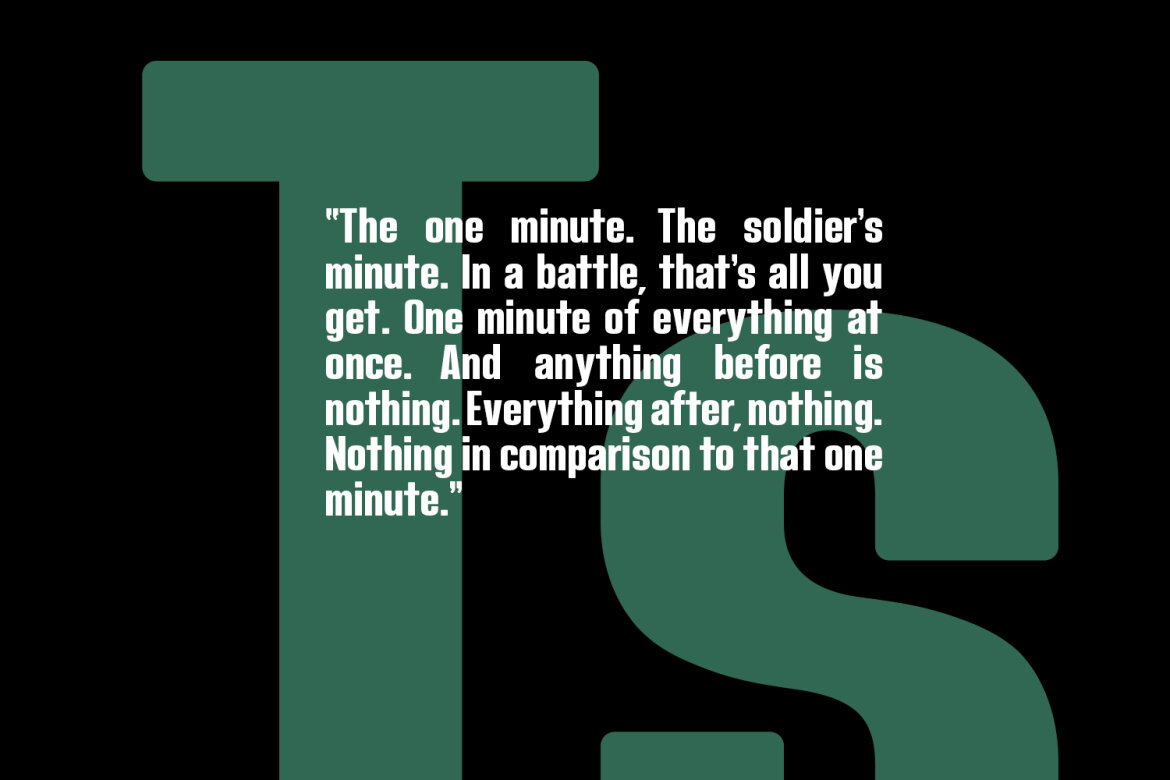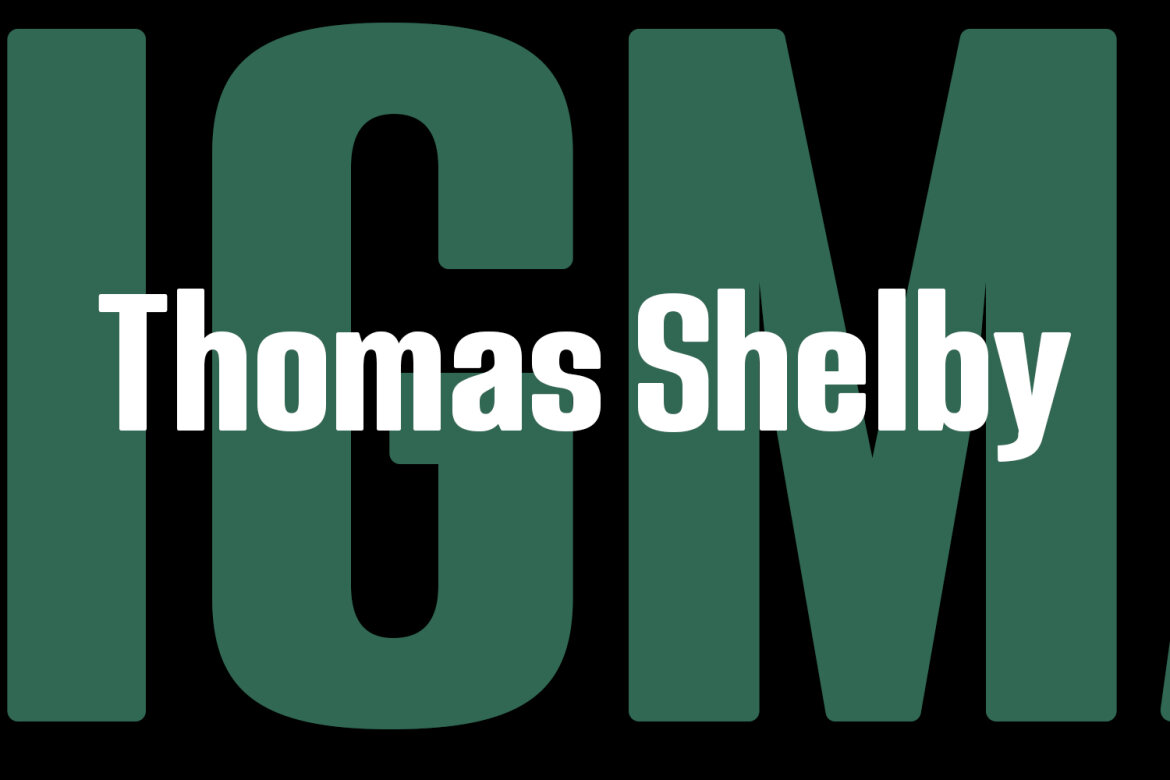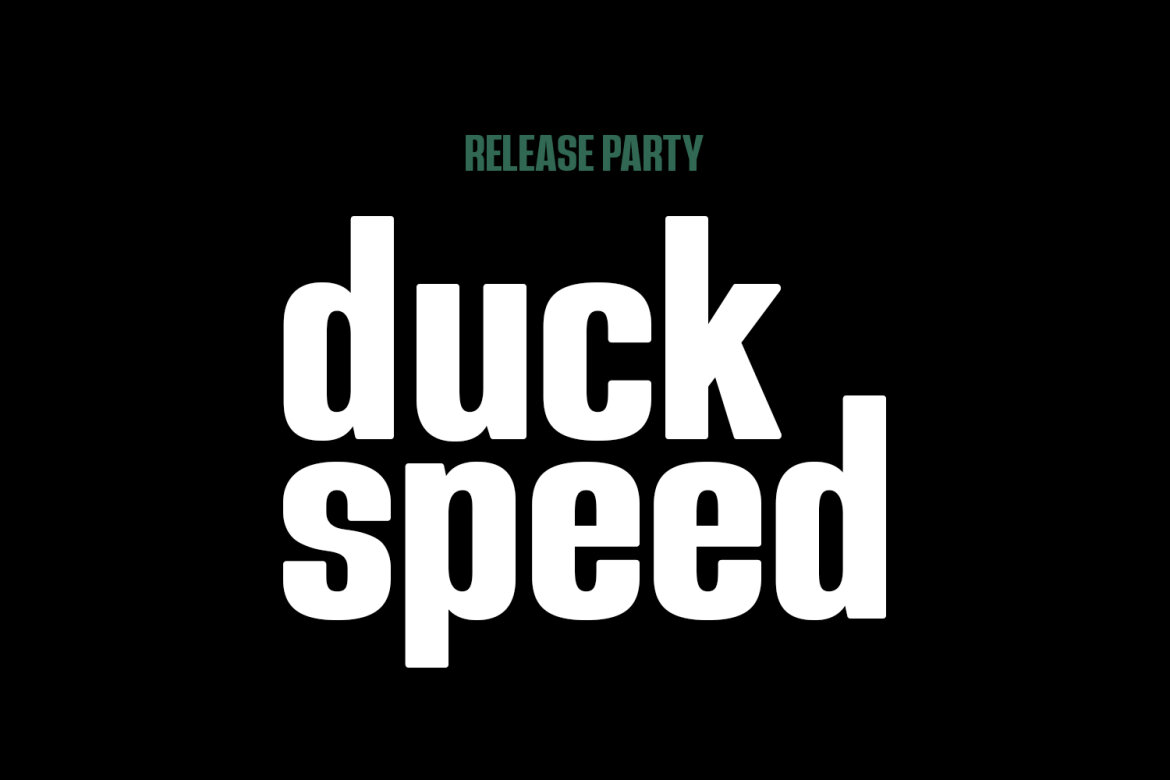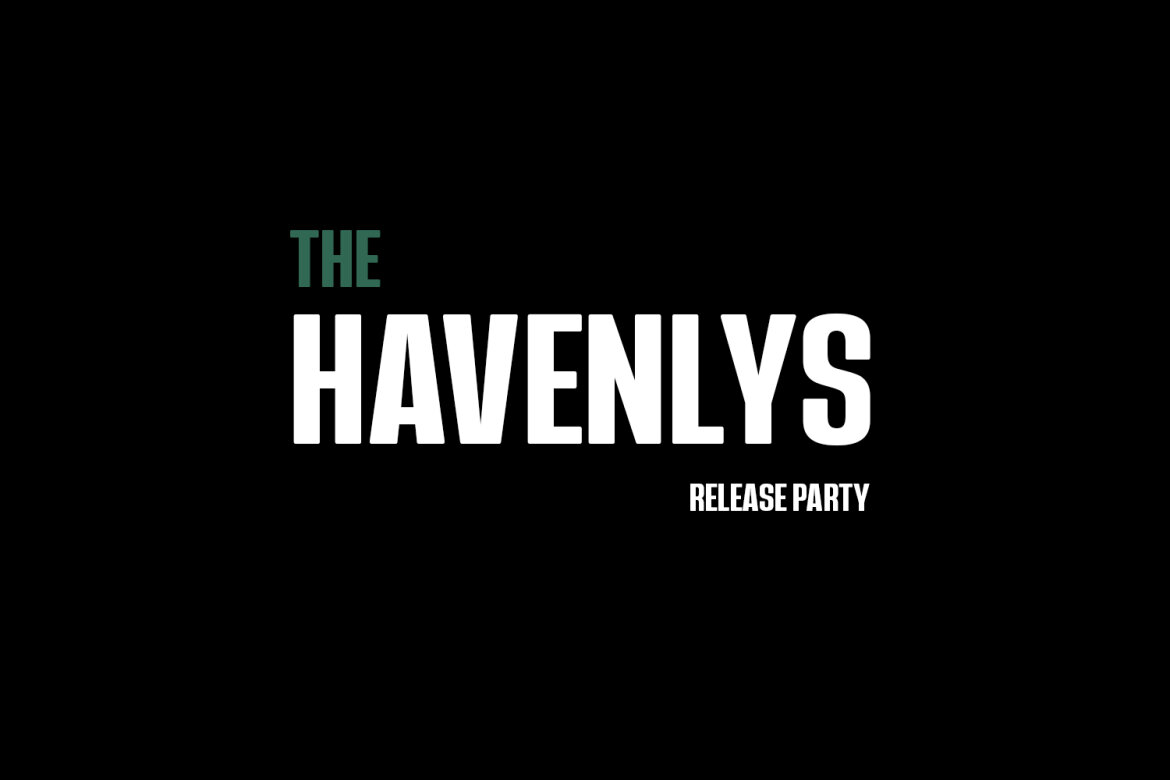
Scolth Sans Serif FREE Font
Scolth Bold Condensed preview
Scolth Bold Condensed
Scolth sans is a classic based sans serif font. With bold round stroke, fun character with a bit of ligatures and alternates. To give you an extra creative work. Scolth sans font support multilingual more than 100+ language. This font is good for logo design, Social media, Movie Titles, Books Titles, a short text even a long text letter and good for your secondary text font with sans or serif. Make a stunning work with Scolth sans font.